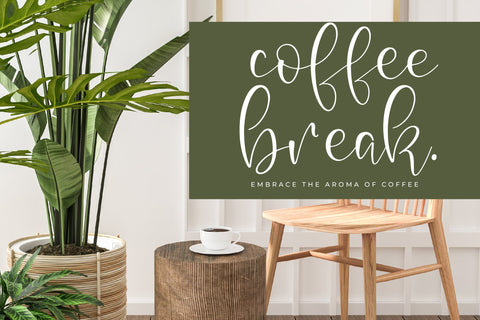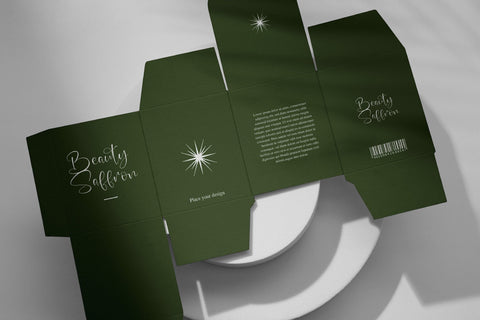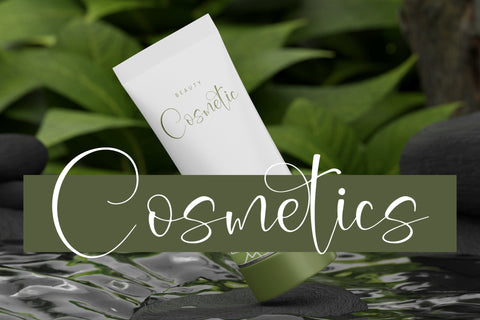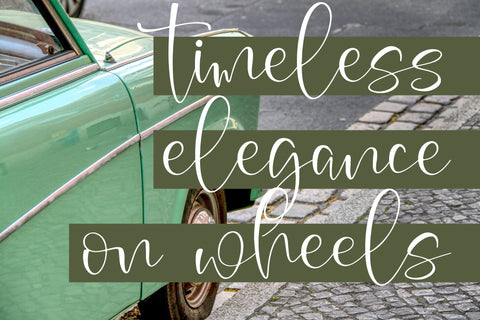
Beauty Sungold - Beautiful Script Font
Beauty Sungold - Beautiful Script Font , from Letterena, is a Luxury Script font, suitable for any projects such as: logos, branding projects, homeware designs, product packaging, mugs, quotes, posters, shopping bags, t-shirts, book covers, name card, invitation cards, greeting cards, label, photography, watermark, special events, and all your other luxury and beautiful projects that need a Luxury Script taste.